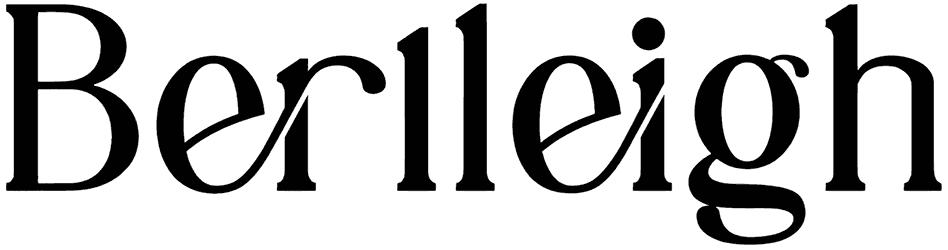
Berlleigh Font
Want to learn how to give your projects a vintage feel? So see how you can include Berlleigh in your design. When used correctly, this serif font can support or contrast a particular design style.